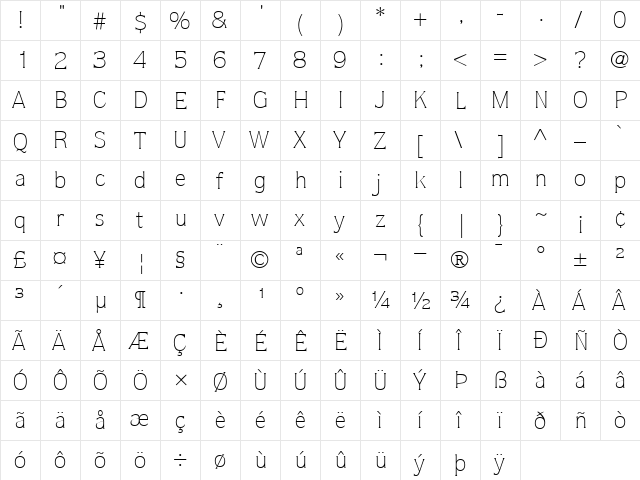
ITCQuorum-Light Light
Design Context for ITCQuorum-Light Typeface
ITCQuorum-Light offers clean, dependable letterforms without strong stylistic allegiance, making it a practical choice for designers who need flexibility. The delicate stroke weight brings airiness and refinement to layouts.
Pro Tip: Use ITCQuorum-Light in both headline and body roles to test its range before committing to a single application.